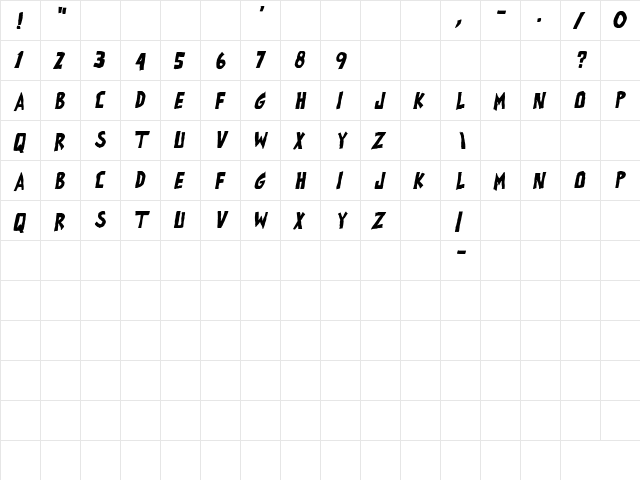
all exes must die! Bold Italic Font Preview
| Designer | Andeh Pinkard |
Design Context for all exes must die! Typeface
all exes must die! is a composed and adaptable typeface that performs quietly and consistently across a wide range of design contexts. Its italic angle brings a sense of urgency and motion to the letterforms. The heavy weight commands attention and anchors typographic hierarchies.
Pro Tip: Try all exes must die! for annotation and caption copy alongside an upright companion — the contrast in angle creates a dynamic but ordered typographic system.